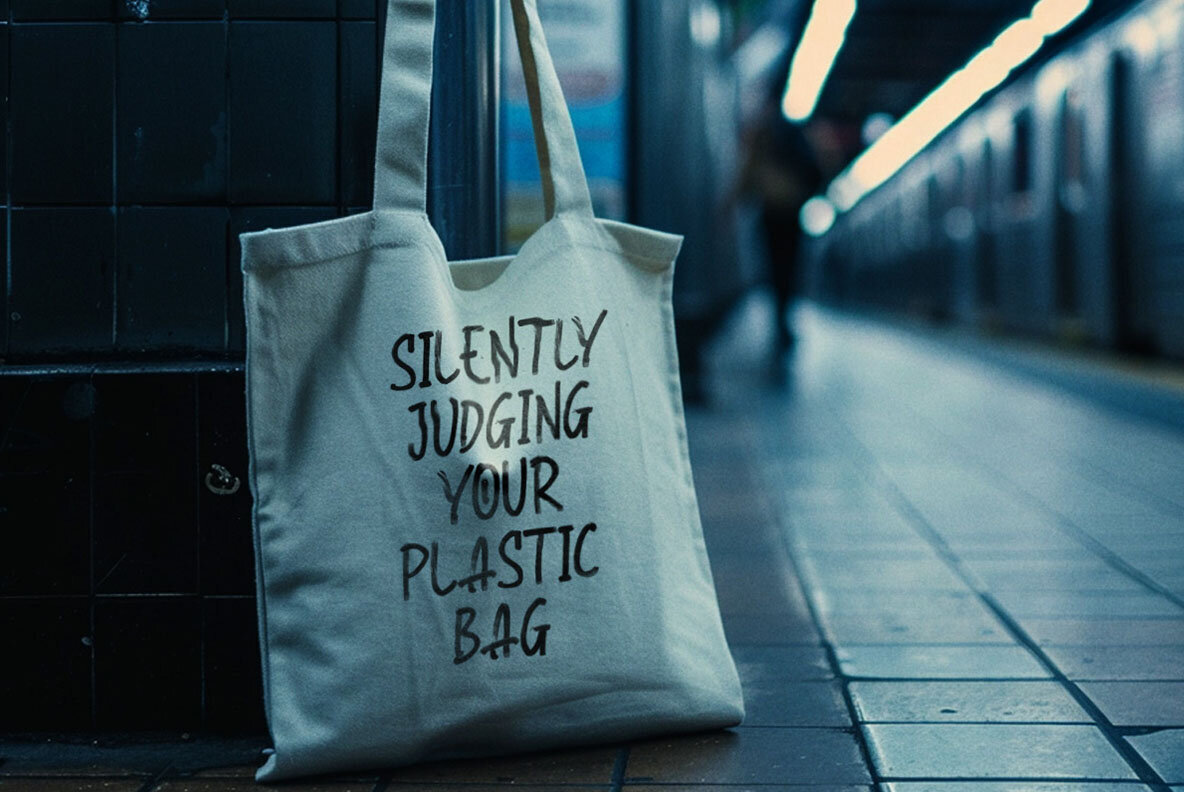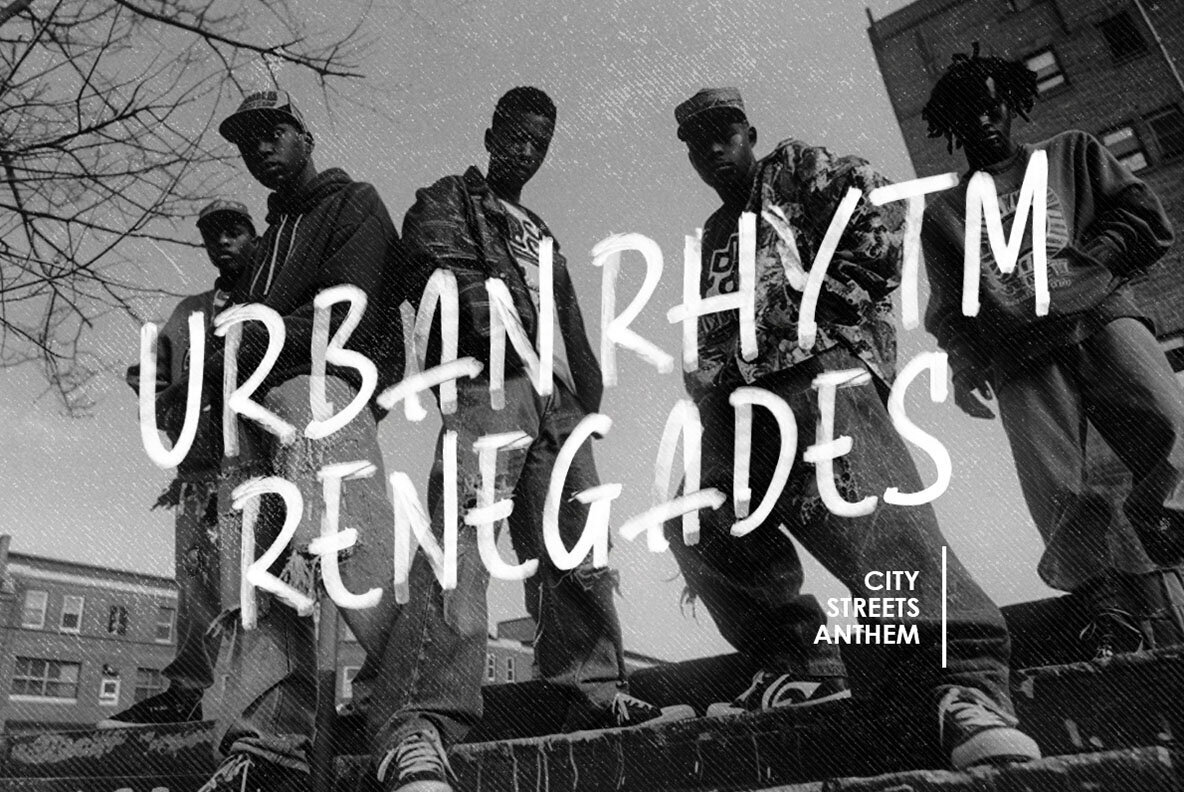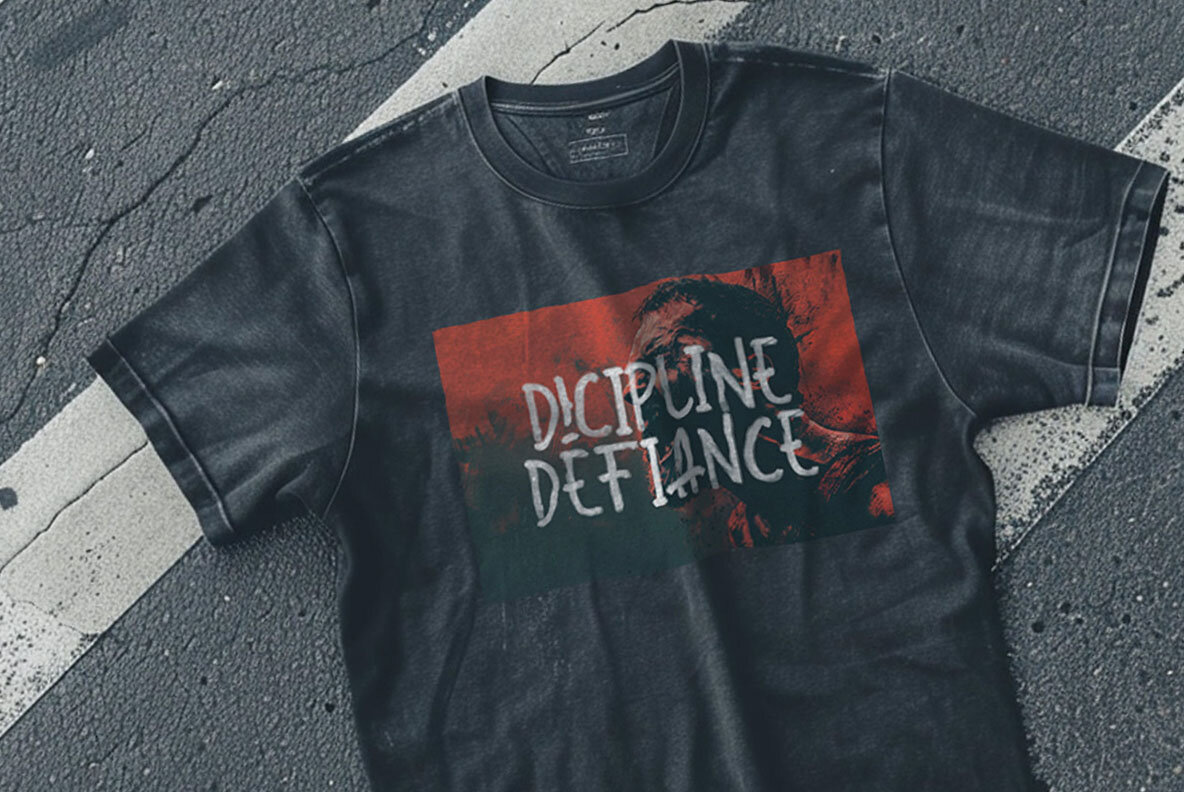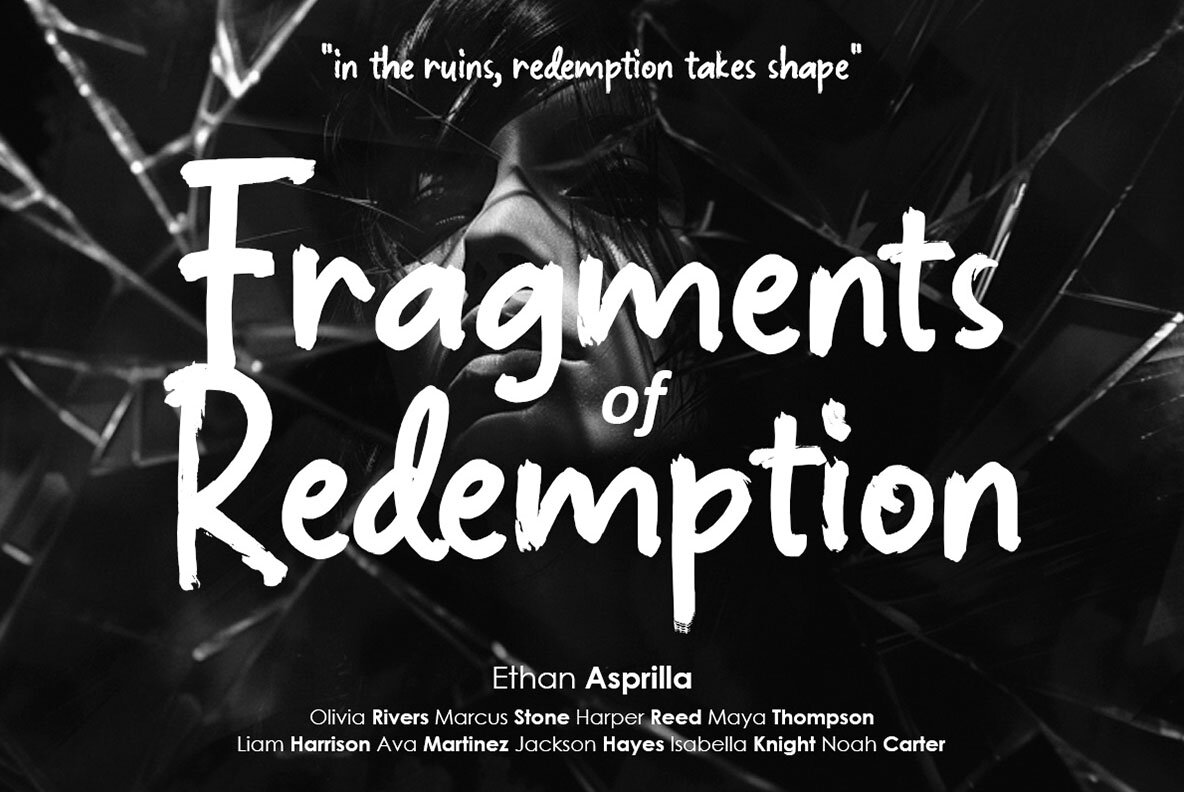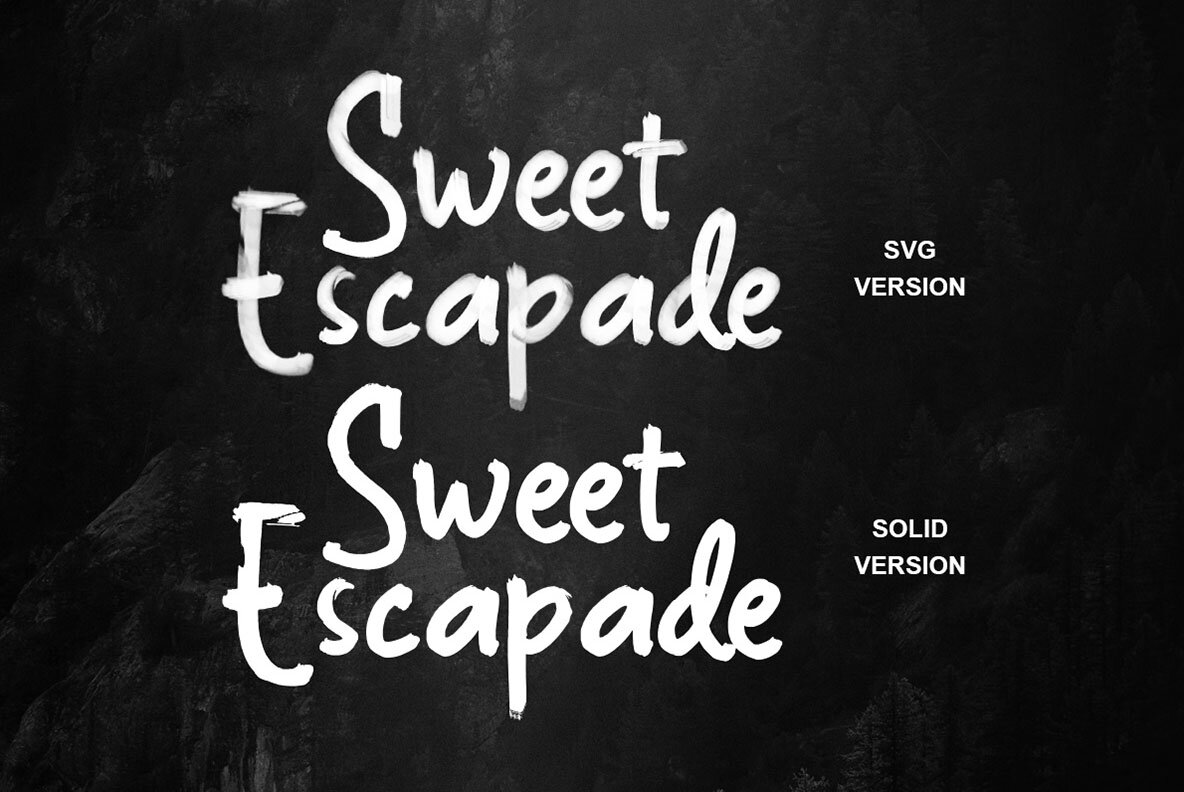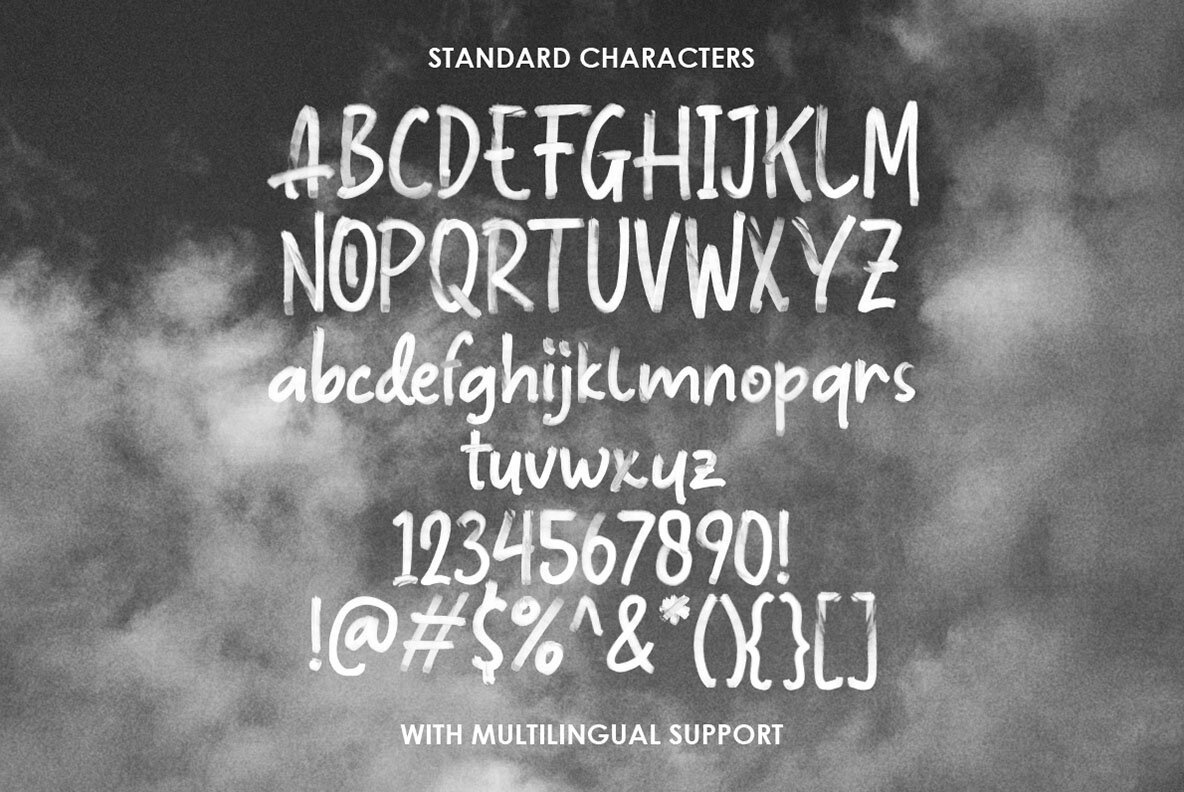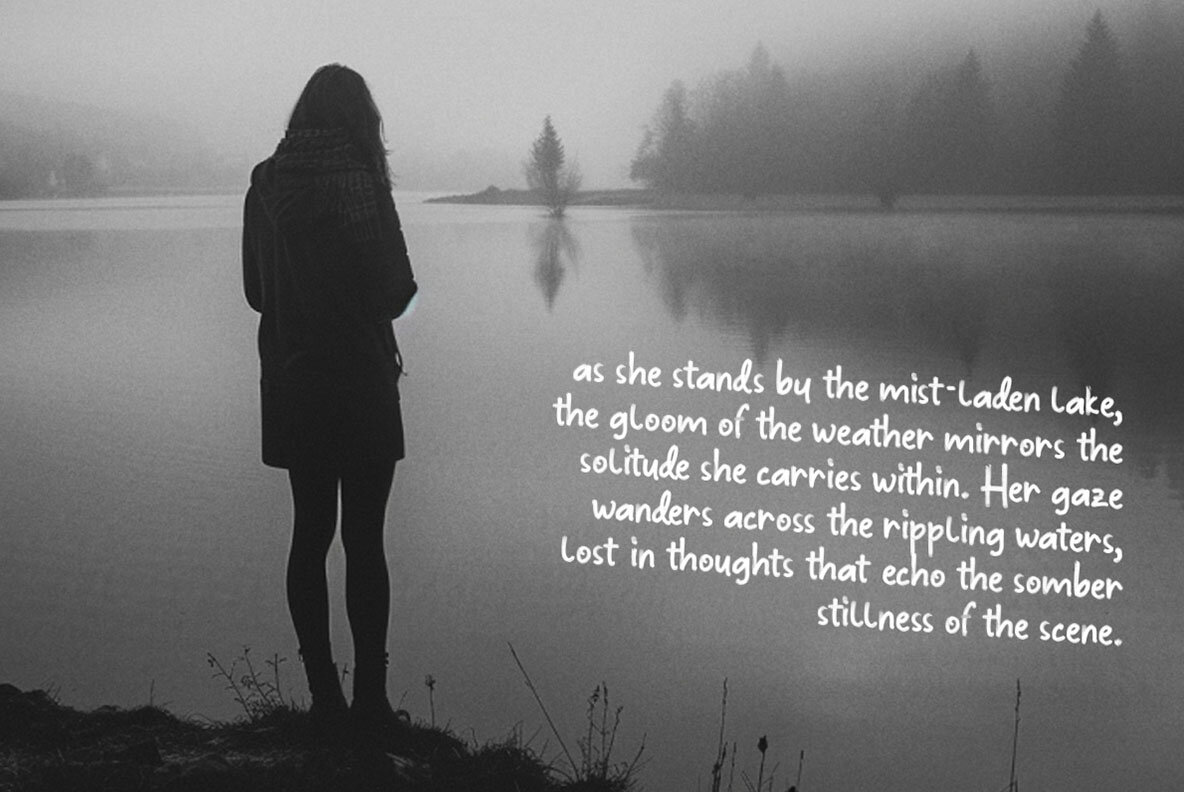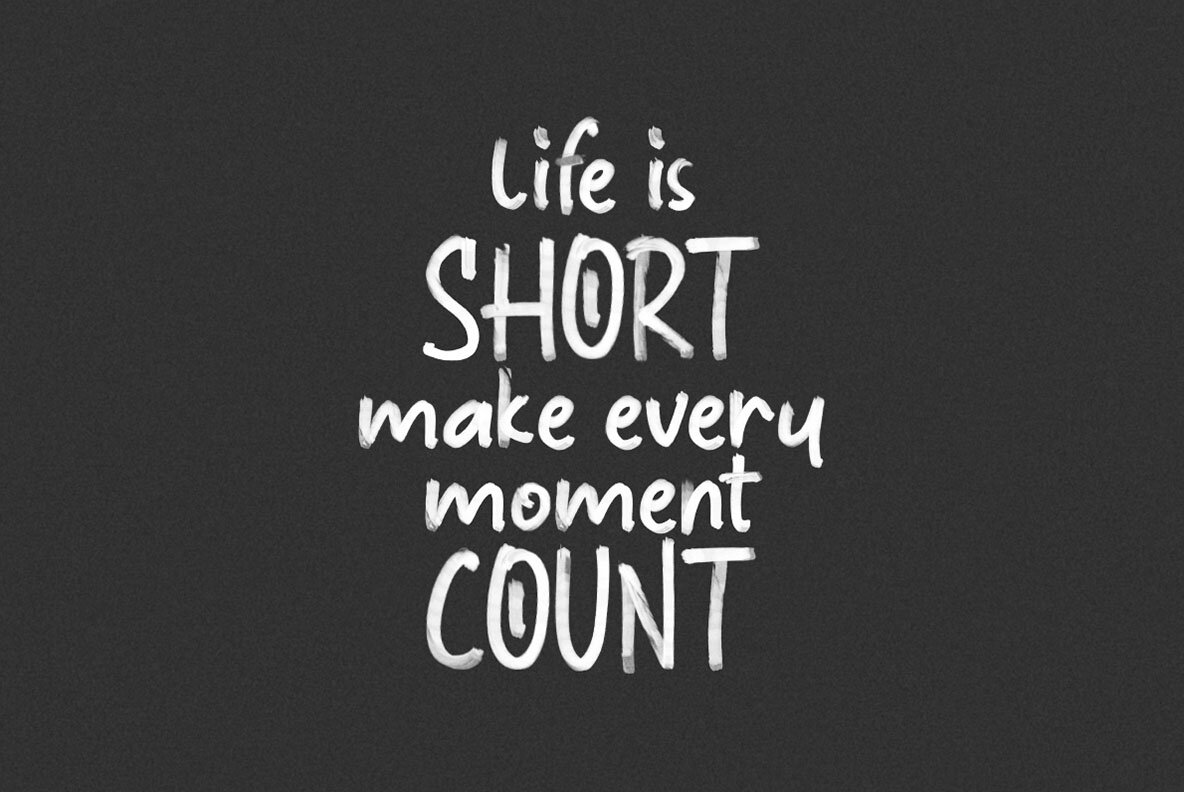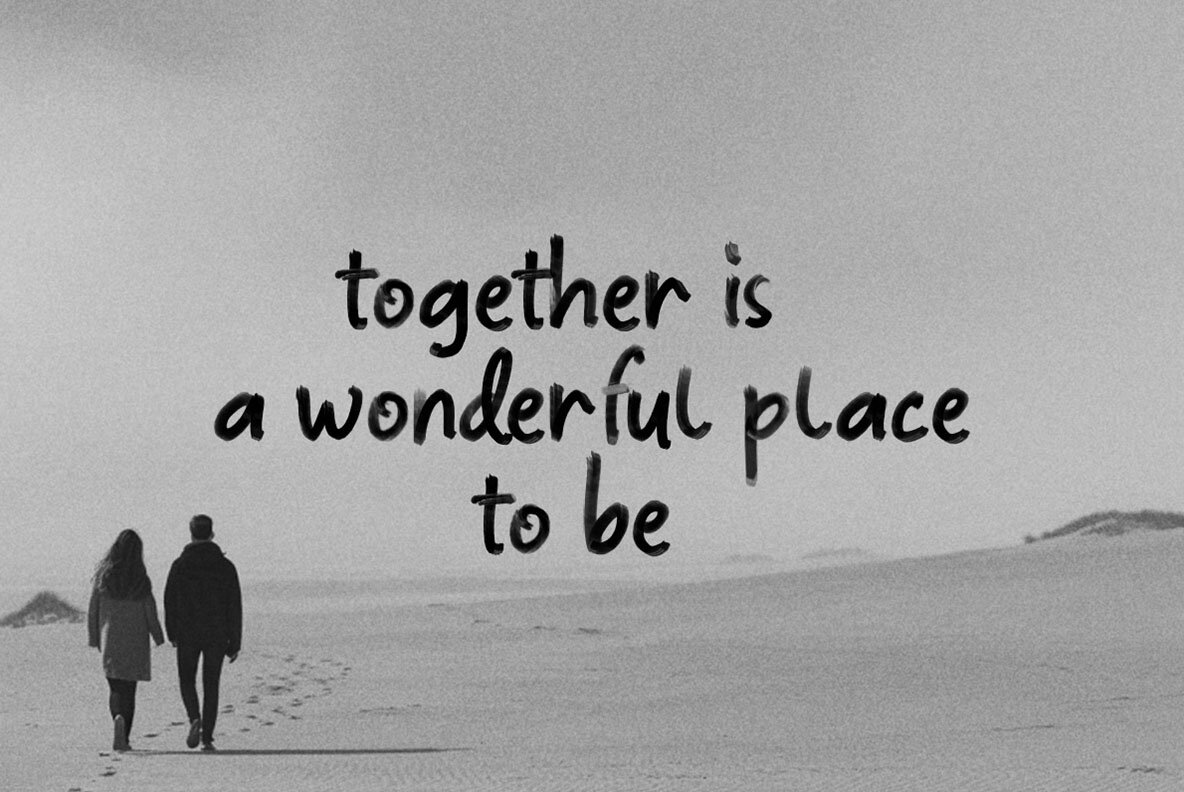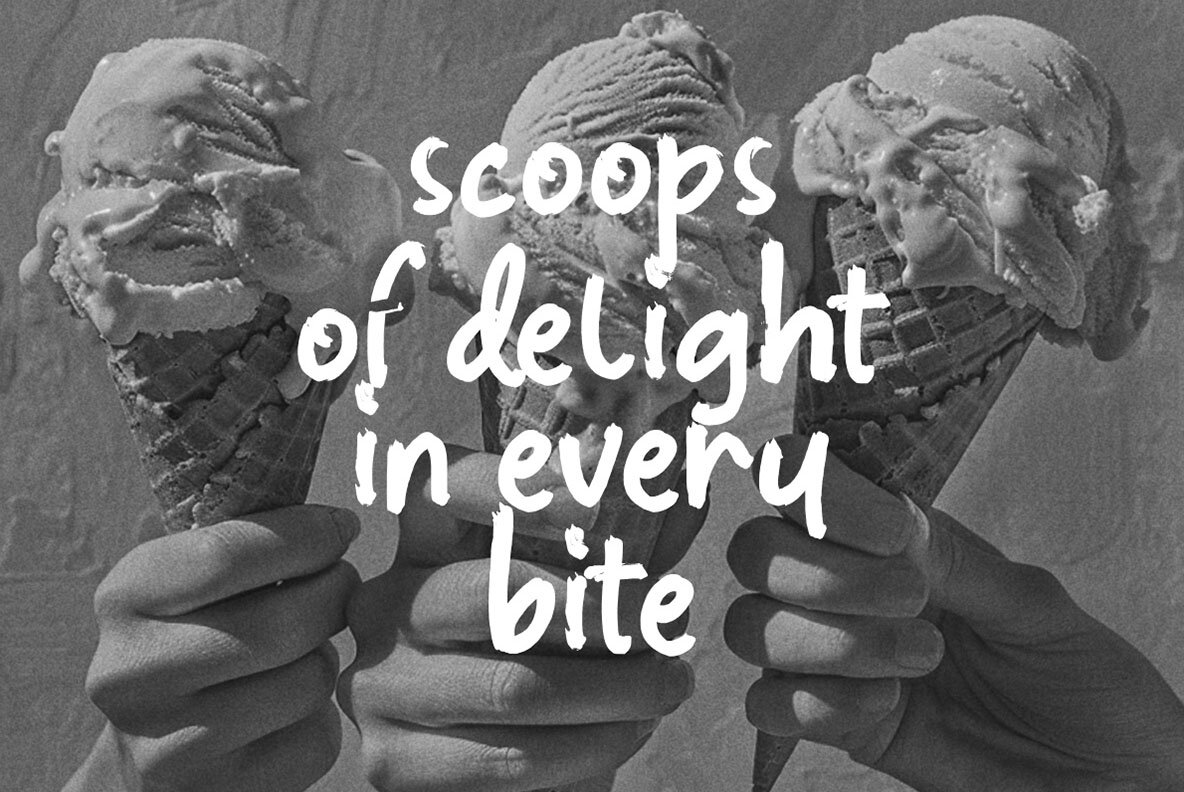
Midnight Subway Font
Midnight Subway offers a unique SVG typeface with two stylish variations: a solid version and a marker-textured version. This font is designed to stand out in headlines and is versatile enough for use in formal applications such as invitations, labels, logos, magazines, books, greeting or wedding cards, packaging, fashion, makeup, stationery, novels, labels, or any form of advertising. We recommend using software that supports OpenType features and Glyph panels, such as Adobe apps and Corel Draw, to fully access all the Glyph variations available.Midnight Subway: The Distinctive Marker SVG Typeface